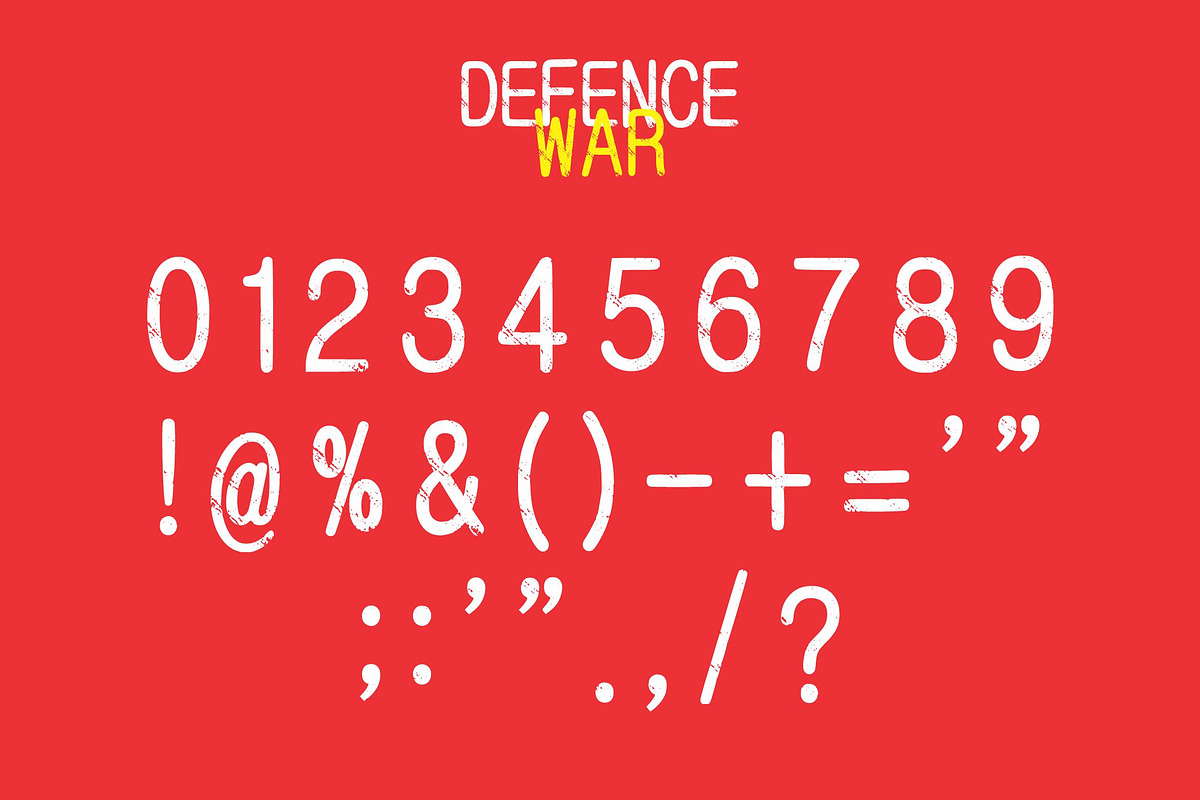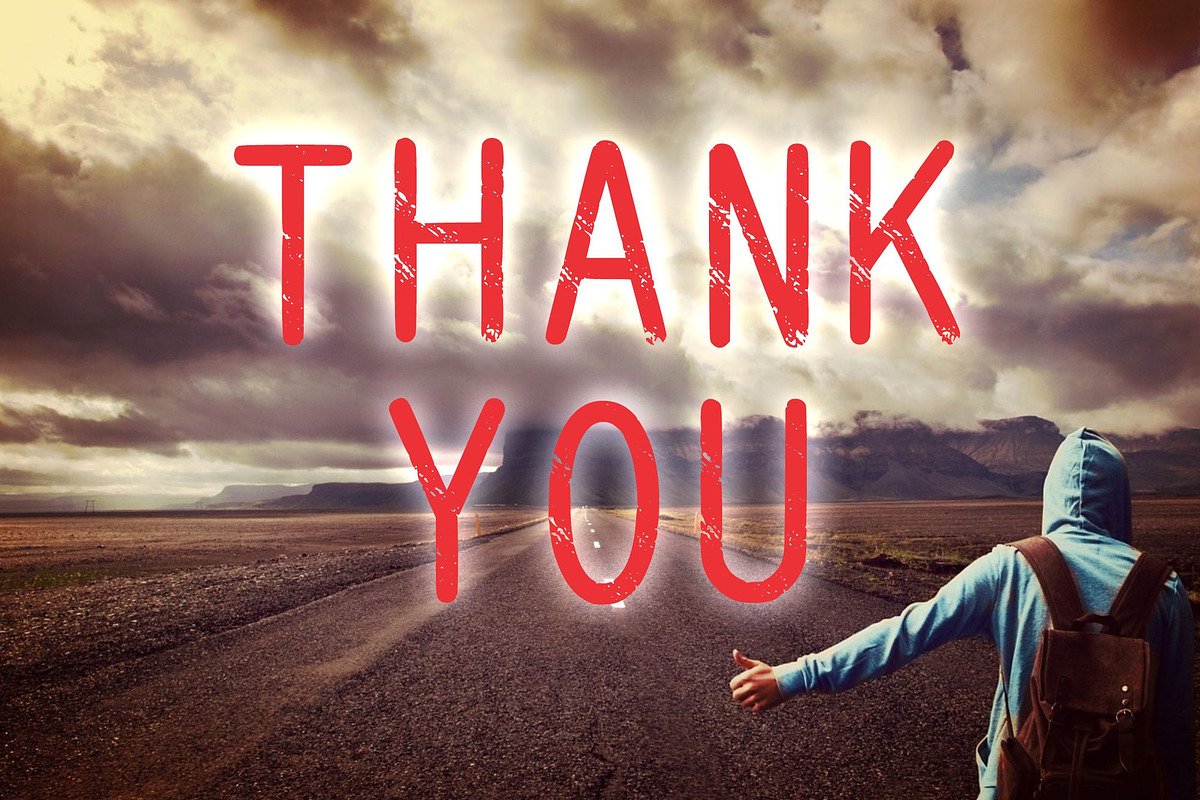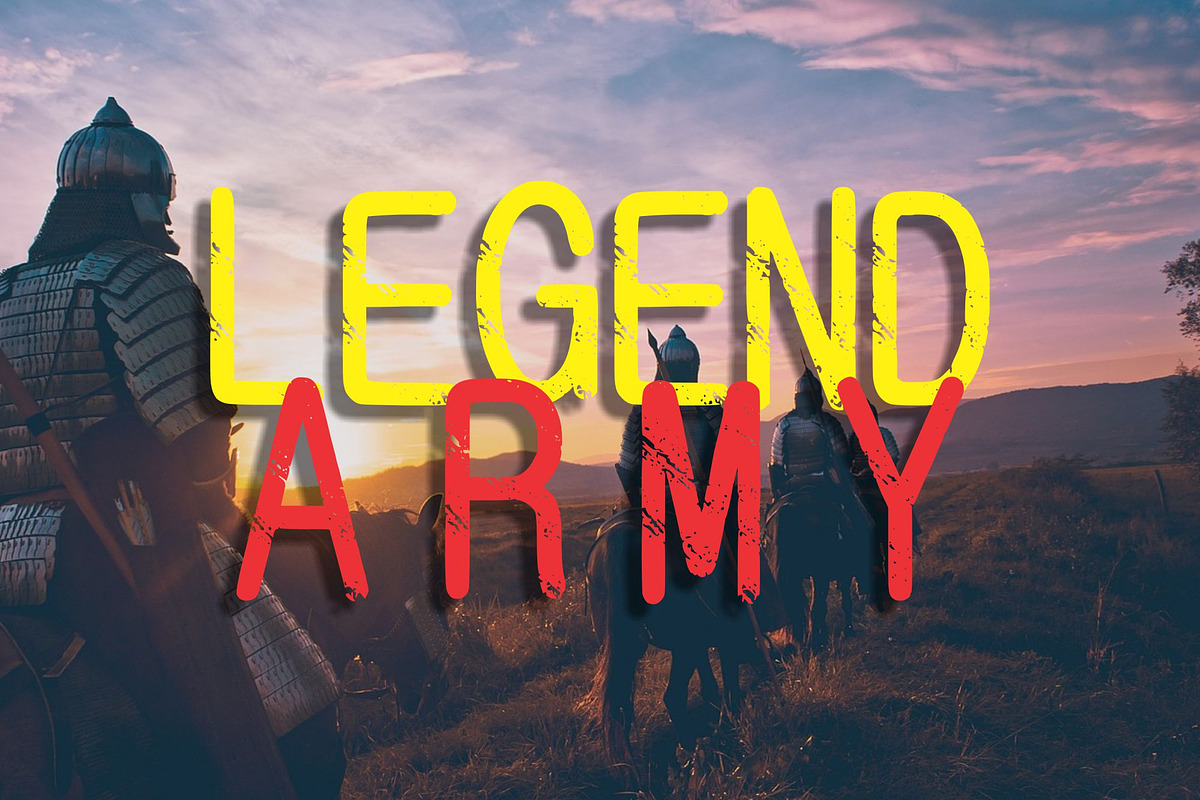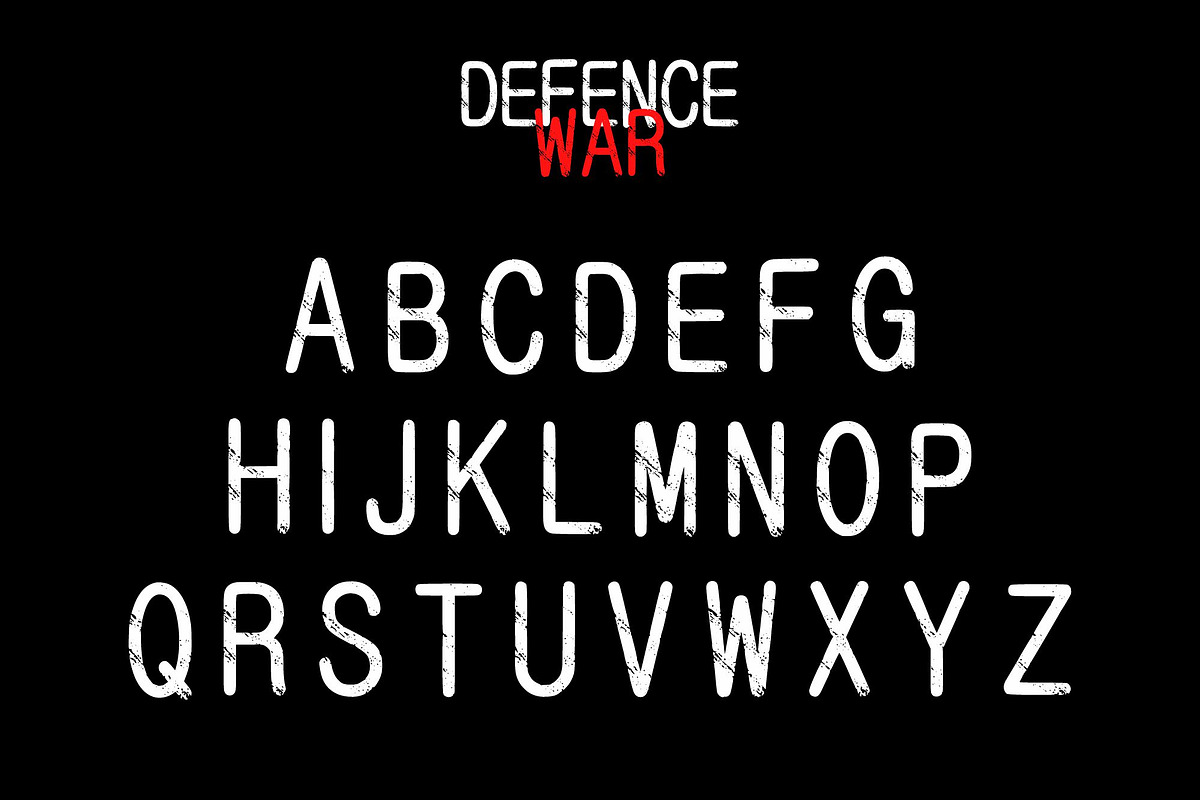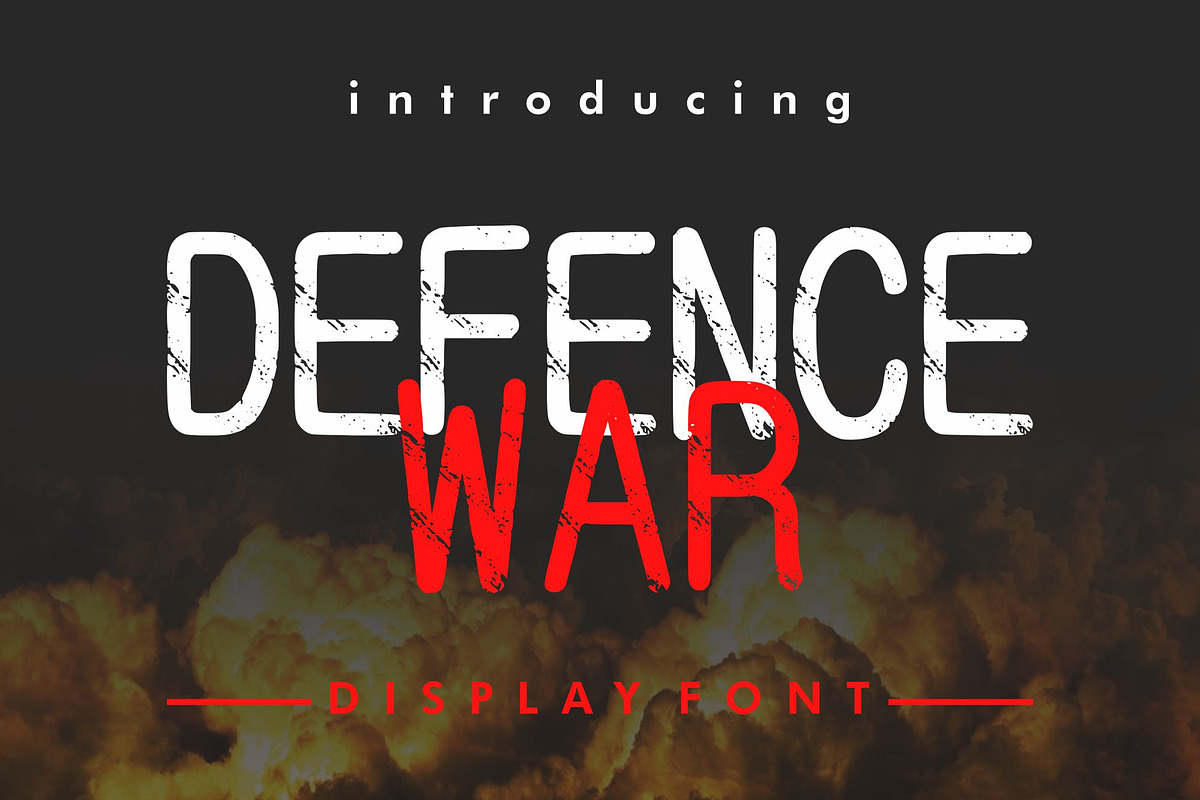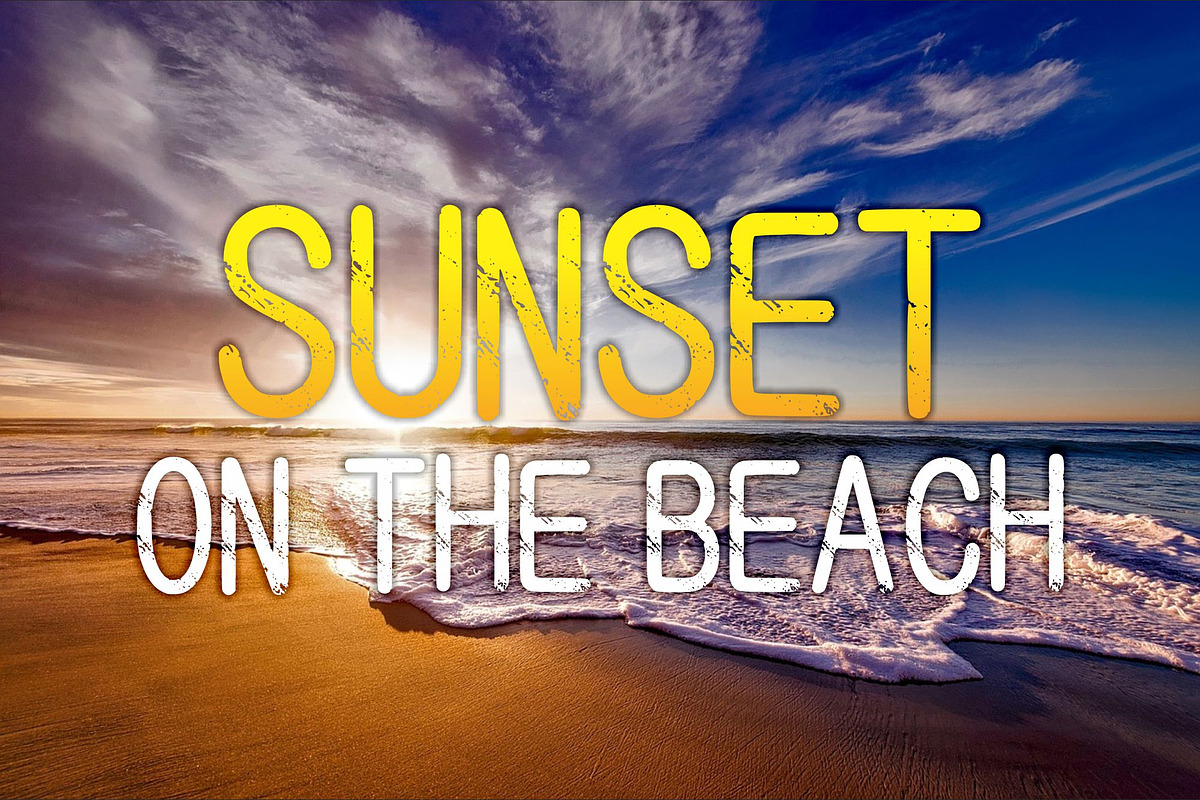
Defence War
Defence War is a cool and elegant grunge display font. No matter the topic, this font will be an incredible asset to your fonts’ library, as it has the potential to elevate any creation.